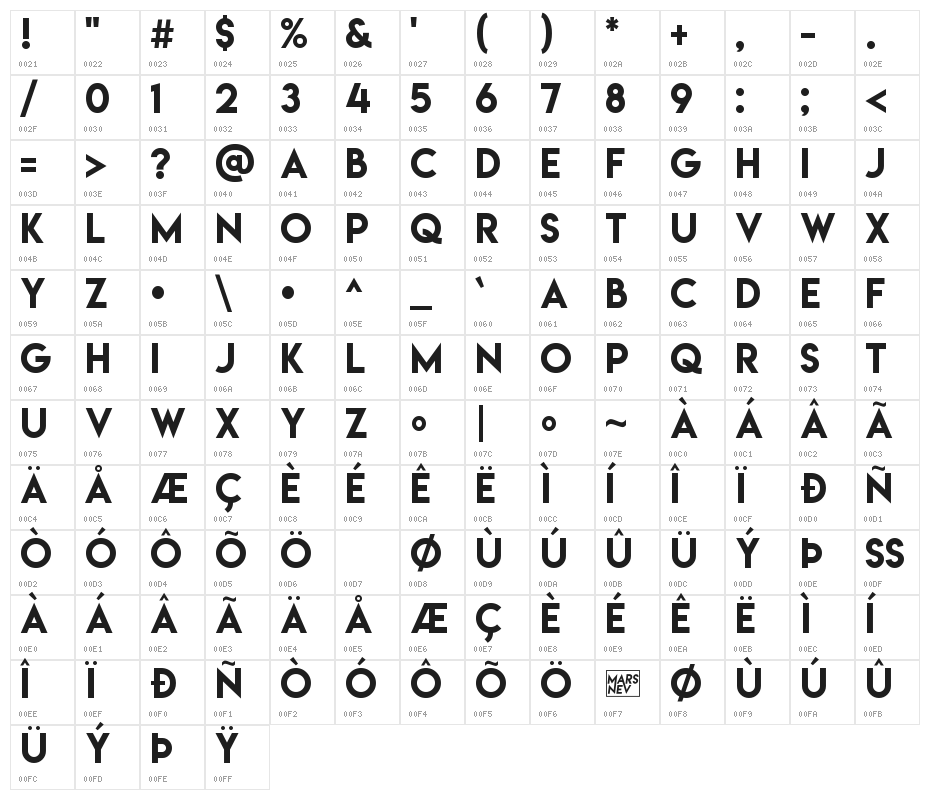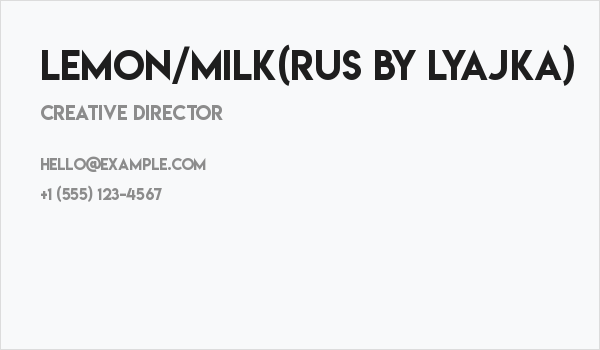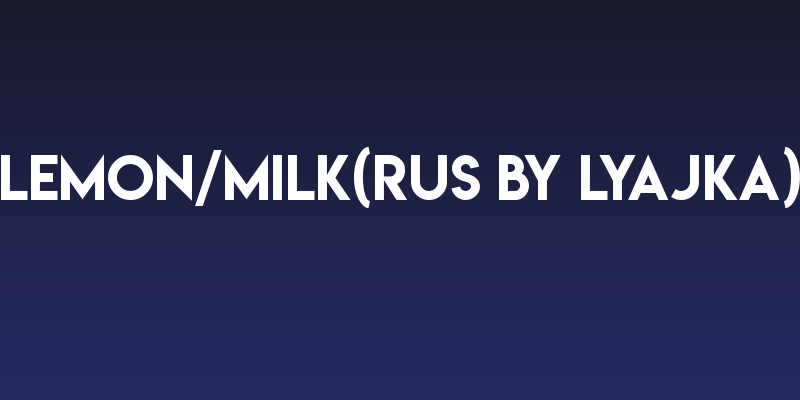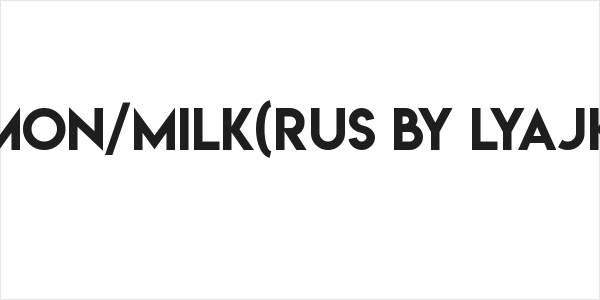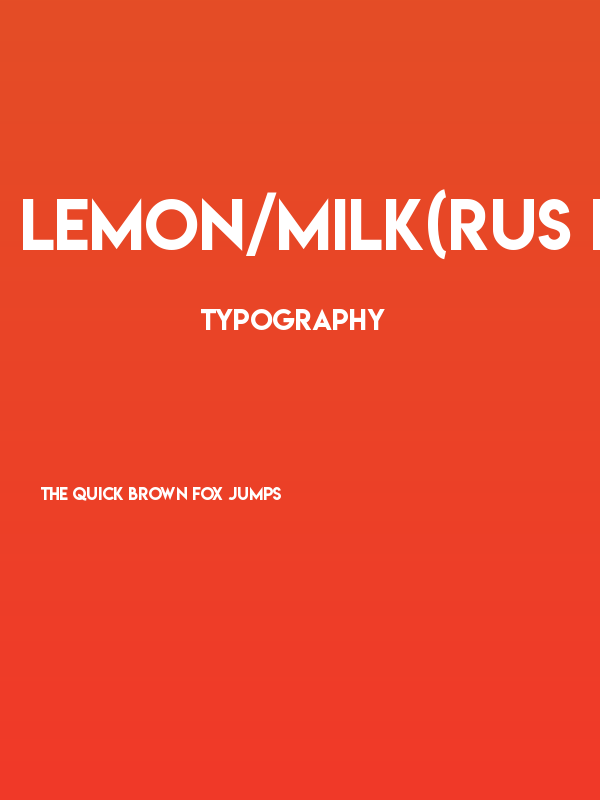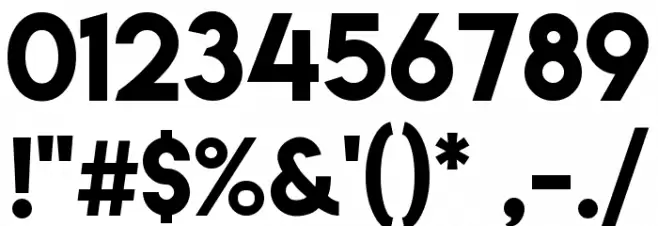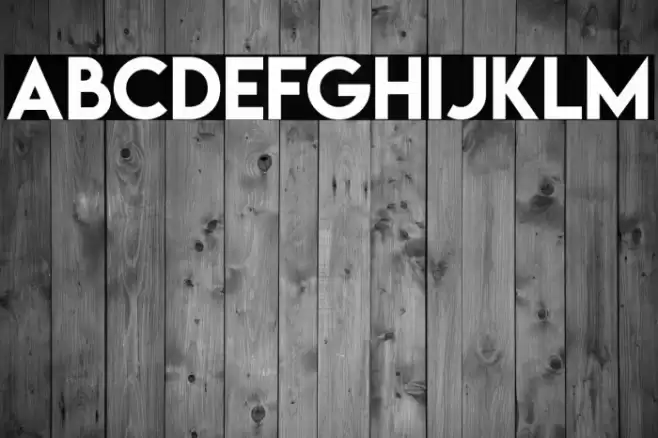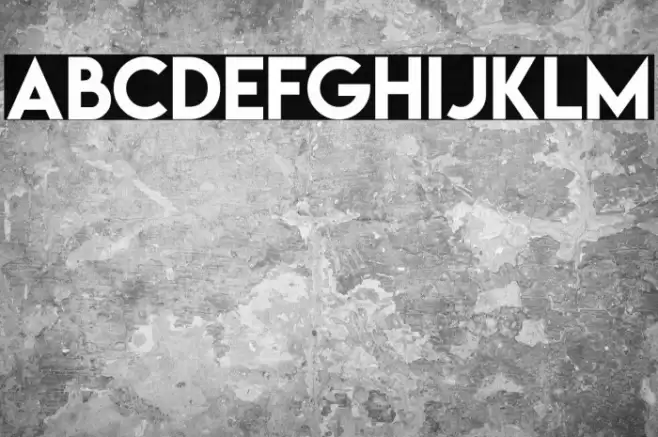
Lemon/Milk(RUS BY LYAJKA) Font
Lemon/Milk(RUS BY LYAJKA) Description
This font features a bold and modern sans-serif style with clean, geometric lines. The characters are uniform in width, providing a balanced and harmonious appearance. The uppercase and lowercase letters are designed with a consistent stroke weight, contributing to a cohesive look. The numerals and special characters maintain the same boldness, ensuring readability and impact. This font is versatile, suitable for various design applications where clarity and modernity are desired.